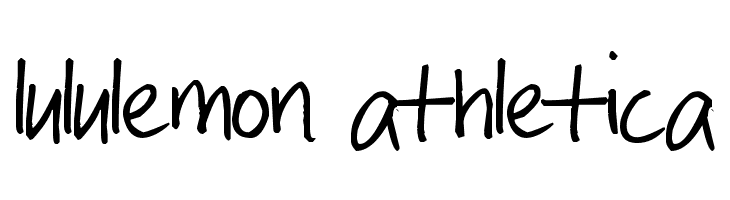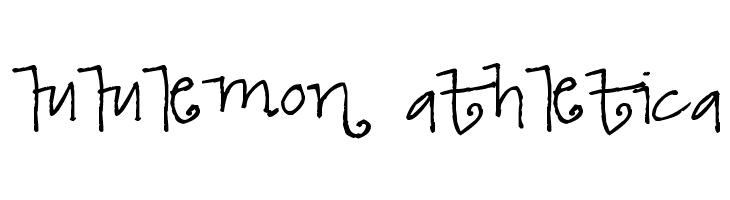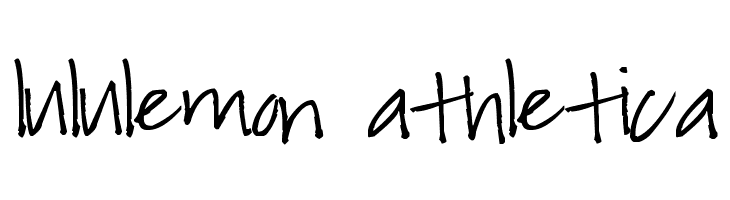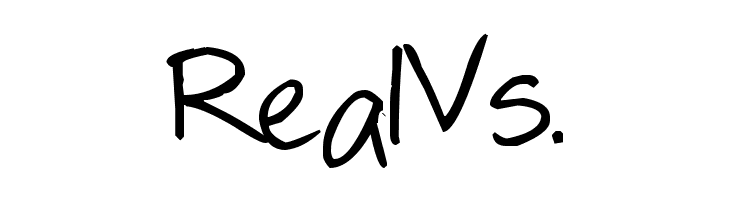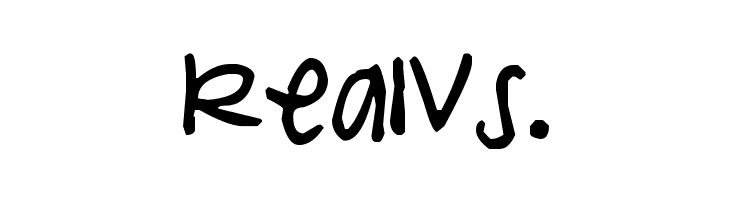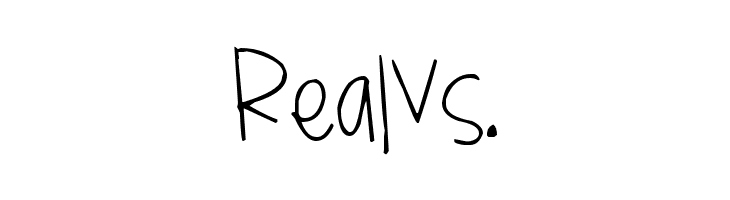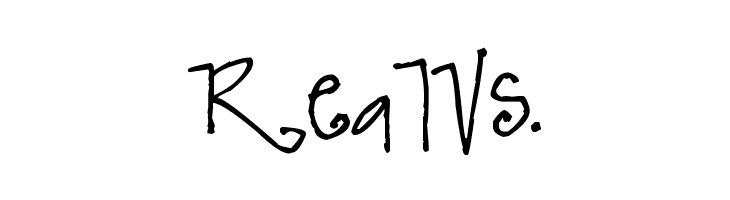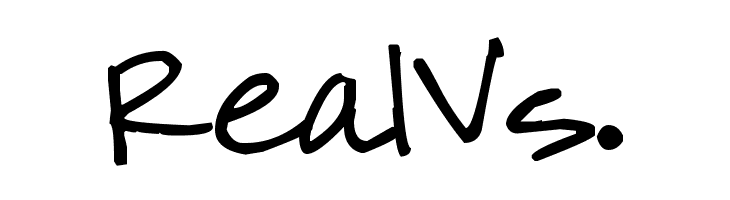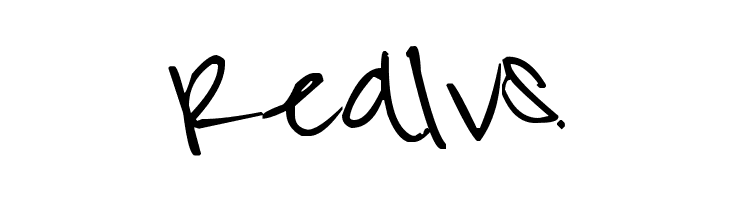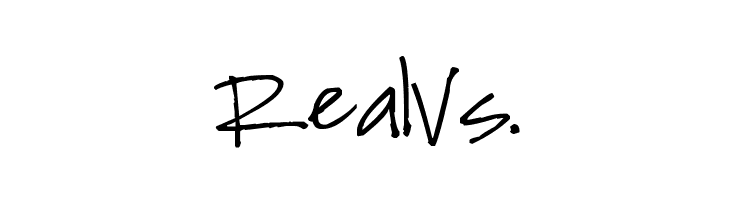
A playful, handwritten font with a whimsical and romantic touch.
A playful, casual handwritten font with an organic and informal style.
A playful, handwritten font with bold, irregular strokes.
A playful, casual handwritten font with dynamic strokes and a personal touch.
A playful, casual handwritten font with a natural, informal style.
A whimsical, hand-drawn doodle font with playful sketches and irregular characters.
A playful, handwritten font with a casual and informal style.
A casual, handwritten font with a playful and dynamic style.
A playful, casual handwritten font with irregular strokes and a lively feel.
A playful, casual handwritten font with irregular, whimsical strokes.
A playful, casual handwritten font with bold, uneven strokes.
A playful, handwritten font with a whimsical and informal style.
A playful, casual handwritten font with dynamic and flowing strokes.
A playful, informal handwritten font with smooth, fluid strokes.
A casual, handwritten font with a playful and dynamic style.
A playful, handwritten font with bold, irregular strokes.
A playful, handwritten-style font with smooth, fluid strokes and a casual appearance.
A playful, casual handwritten font with a natural flow and informal touch.
A playful, handwritten font with a casual and dynamic style.
A bold, playful handwritten font with rounded strokes and a casual vibe.
A playful, handwritten font with dynamic strokes and a casual style.
A playful, casual handwritten font with a personal touch.
A playful, casual handwritten font with a lively and spontaneous appearance.
A casual, playful handwritten font with dynamic strokes.
A playful, bold handwritten font with a casual and energetic style.
A playful, handwritten font with a casual and informal style.
A playful, casual handwritten font with dynamic strokes.
A playful, handwritten font with a casual and whimsical style.
A playful, casual handwritten font with irregular strokes and a lively feel.
A playful, handwritten font with bold strokes and quirky character spacing.
A playful and casual handwritten font with irregular strokes and a lively appearance.
A casual, handwritten font with a playful and informal style.
A playful, handwritten font with a whimsical and informal style.
A playful set of hand-drawn doodles with whimsical and fun designs.
A playful, hand-drawn font with uneven strokes and whimsical charm.